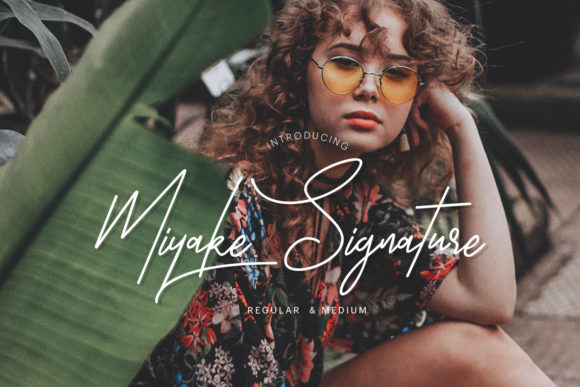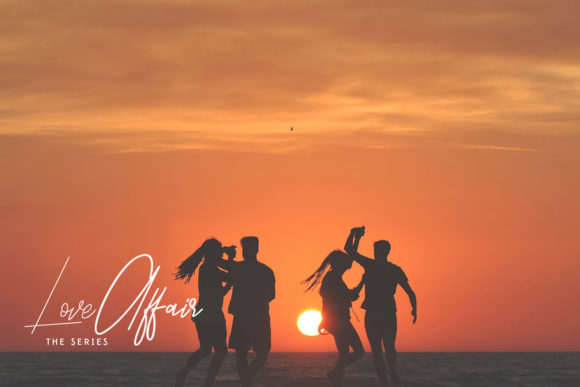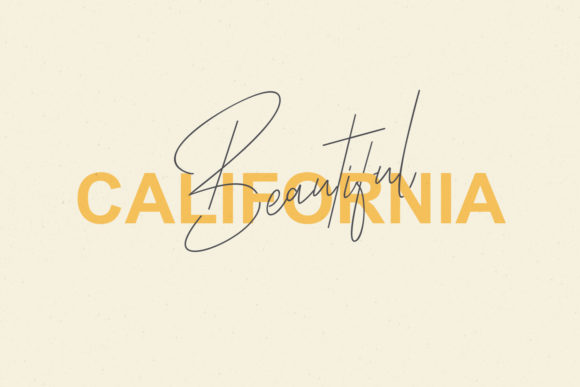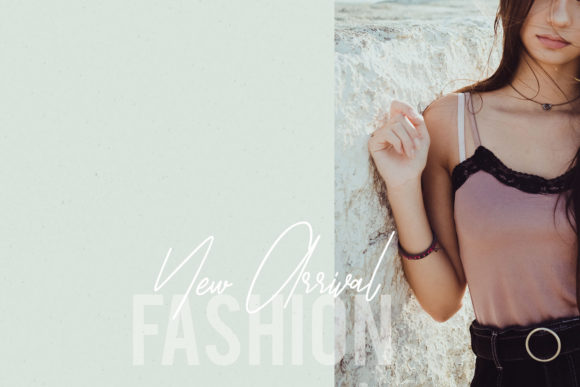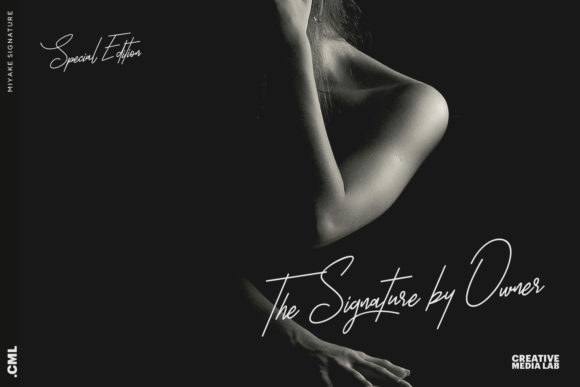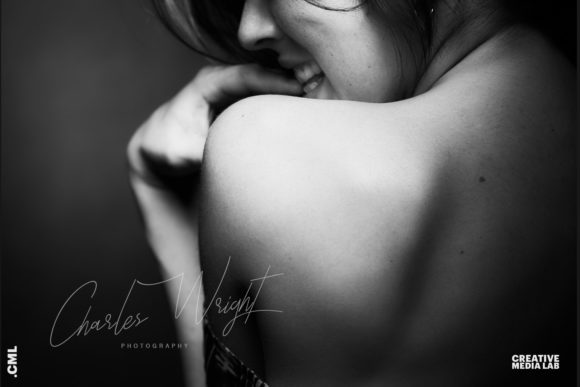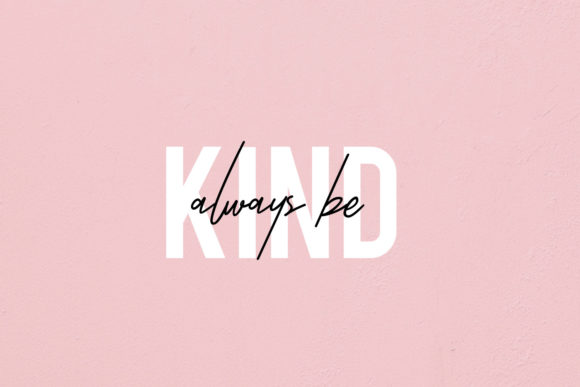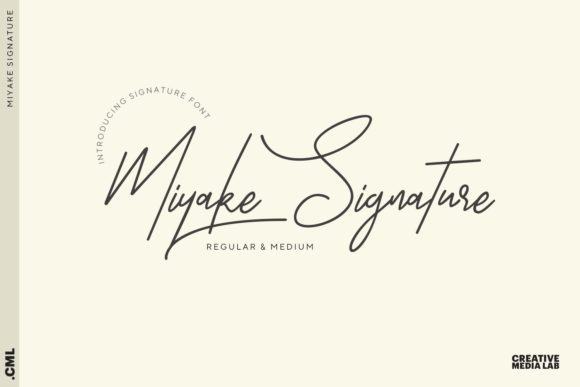
HomeScript FontsMiyake Font Script Fonts Miyake Font FacebookXPinterestWhatsApp Miyake Font Poster 2 Miyake Font Poster 3 Miyake Font Poster 4 Miyake Font Poster 5 Miyake Font Poster 6 Miyake Font Poster 7 Miyake Font Poster 8 Miyake Font Poster 9 About Miyake Font Miyake is a unique handwritten font with an authentic twist. It will add a personal spark to any design idea. DOWNLOAD ON CREATIVE FABRICAThis font is sold and delivered by Creative Fabrica. Font Canyon may earn a commission if you buy through this link. People also explored Callista Font Lucky Fashion Font Stay Healing Font Little Canary Font Sweghand Font Lallaiku Font Tower House Font Backhome Font 293 0 TagsMiyake Font Previous articleHeulwen FontNext articleKiddo Font LEAVE A REPLY Cancel reply Comment: Please enter your comment! Name:* Please enter your name here Email:* You have entered an incorrect email address! Please enter your email address here Website: Save my name, email, and website in this browser for the next time I comment. Personal Use Free Starborn Font Personal Use Free Read more about this font Manhattan Personal Use Free Read more about this font Dacquoise Personal Use Free Read more about this font Gaboed Personal Use Free Read more about this font BLOG Fonts That Capture the Spirit of New York City New York City is more than just a place—it’s an experience, a rhythm, a visual language... Where to Buy American Fonts Online in 2024 To increase your work productivity, choose the most readable fonts. Using Fonts in Digital Marketing: Tips to Strengthen Your Brand Identity